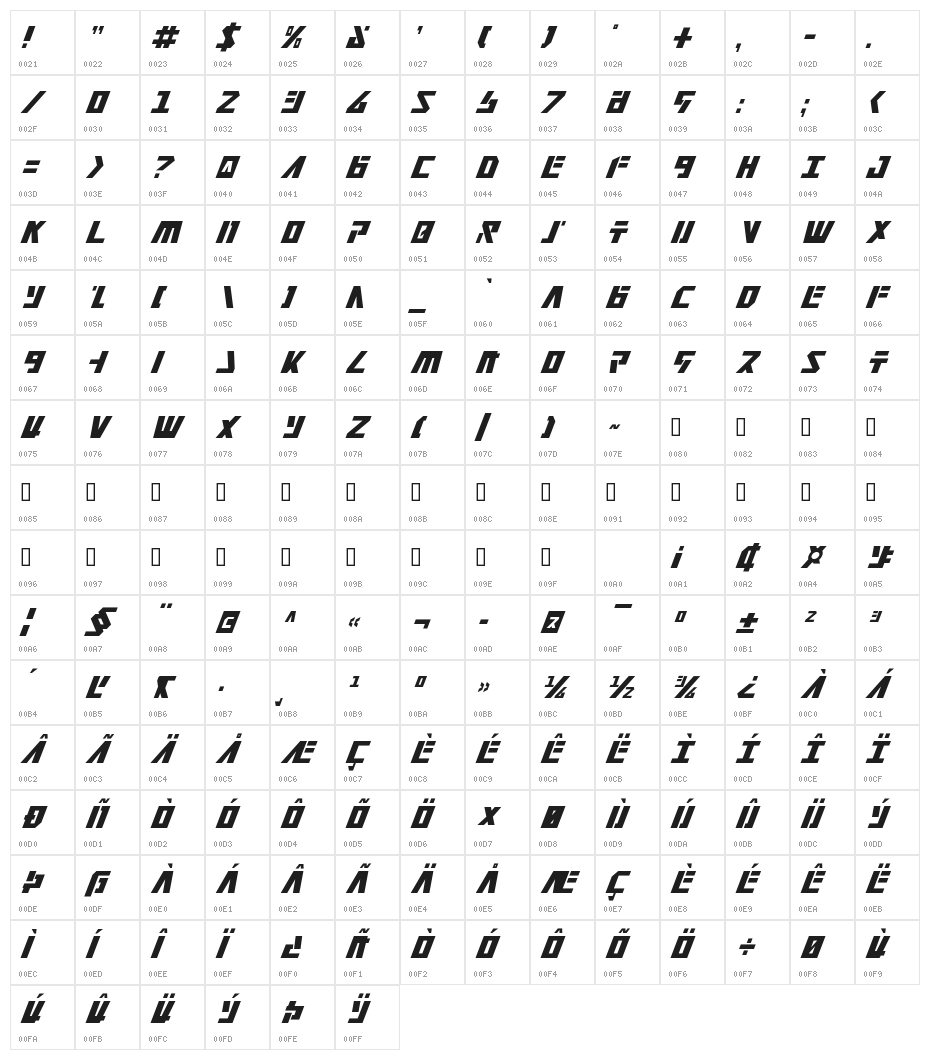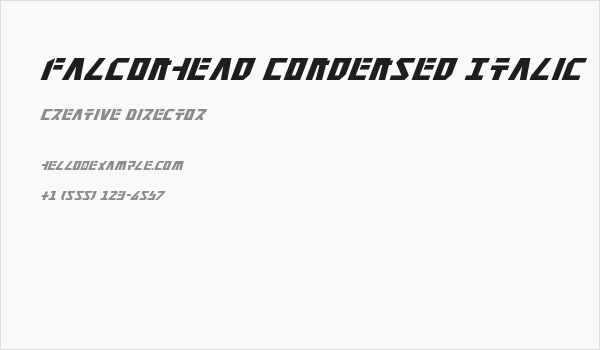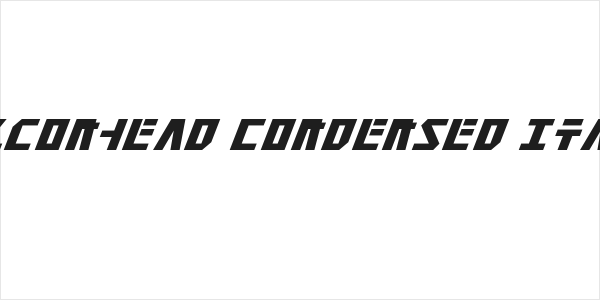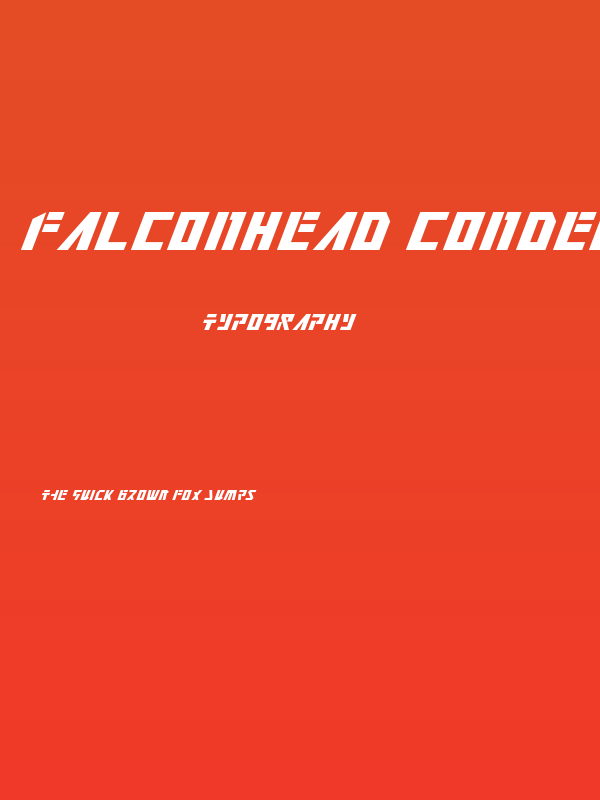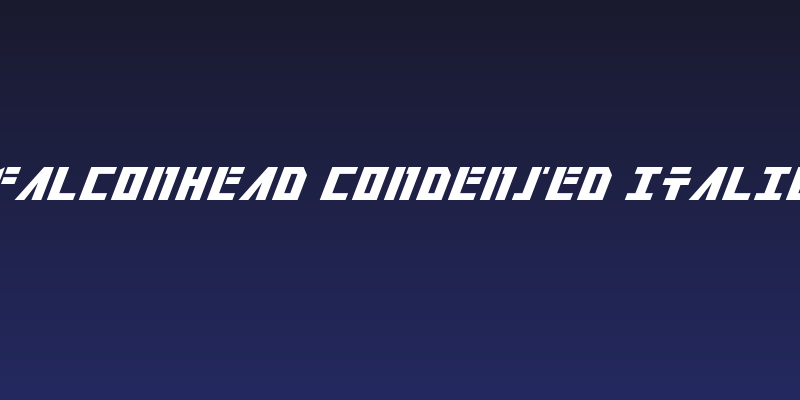
Falconhead Condensed Italic Font
Falconhead Condensed Italic Description
This font features a bold and angular design, characterized by its sharp edges and geometric shapes. The letters are condensed and italicized, giving a dynamic and forward-leaning appearance. The uppercase and lowercase letters maintain a consistent style, with a futuristic and edgy look. Numbers and special characters follow the same angular theme, ensuring uniformity across all glyphs. The font's unique style makes it stand out, suitable for projects that require a modern and impactful visual identity.
| Proposed Projects | Ideal for branding, posters, video game titles, and sci-fi themed designs. |